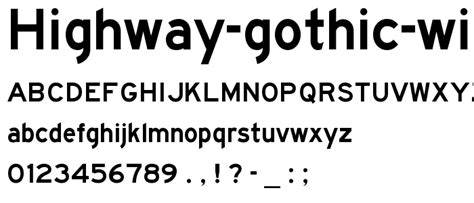
What Are Highway Fonts?
Highway fonts are a type of fonts that are often used in road signs and other highway-related signage. They provide an easy-to-read, highly legible typeface that is designed to be seen from a distance and stand out from the background. Highway fonts are typically sans serif fonts, meaning they don’t have the decorative “feet” at the ends of the letters. Sans serif fonts are also known for their simple structure and minimalistic design, making them ideal for signage.
Highway fonts are typically used in transportation and public safety-related signage, as they are easy to read and recognize from a distance. They are also used in advertisements, logos, and other marketing materials. Highway fonts are typically created with a high contrast between the thick and thin lines, making them easier to read from far away. They are also designed to be highly visible against various backgrounds. The most common highway fonts are FHWA Series E, FHWA Series C, Eurostile, and Highway Gothic.
History of Highway Fonts
Highway fonts originated in the United States in the 1930s when the Federal Highway Administration (FHWA) developed a series of font styles for use in highway signs. The original font, FHWA Series E, was designed in 1936 by the American Institute of Graphic Arts (AIGA) and was intended to be used for highway signs. The font was designed to be highly legible and recognizable from a distance, and it quickly became the standard for highway signage.
The FHWA then developed a second font, FHWA Series C, in 1939. This font was designed with a slightly different style and was intended for use in larger signs, such as those found on interstate highways. In the 1950s, the FHWA developed a third font, Highway Gothic, which was specifically designed for use on interstate highway signs. This font is still used today and is the standard for most highway signage.
Advantages of Highway Fonts
Highway fonts are designed to be highly legible and recognizable from a distance, making them ideal for use in highway signs and other transportation-related signage. They are also designed to be highly visible against various backgrounds, making them easy to read from far away. The high contrast between the thick and thin lines also makes them easy to read from a distance, even when there is glare or low light.
In addition to being highly legible and visible, highway fonts are also designed to be simple and minimalistic, making them easier to read and recognize. They also provide a consistent look and feel, which helps to create a unified look for signage. This can make it easier for drivers to recognize and follow signs, reducing confusion and making highways safer.
Highway fonts are a type of font that is designed to be highly legible and recognizable from a distance. They are typically used in highway signs and other transportation-related signage, and they provide a consistent look and feel that can help to make highways safer. Highway fonts are typically sans serif fonts, meaning they don’t have the decorative “feet” at the ends of the letters, and they typically have a high contrast between the thick and thin lines. The three most common highway fonts are FHWA Series E, FHWA Series C, and Highway Gothic.